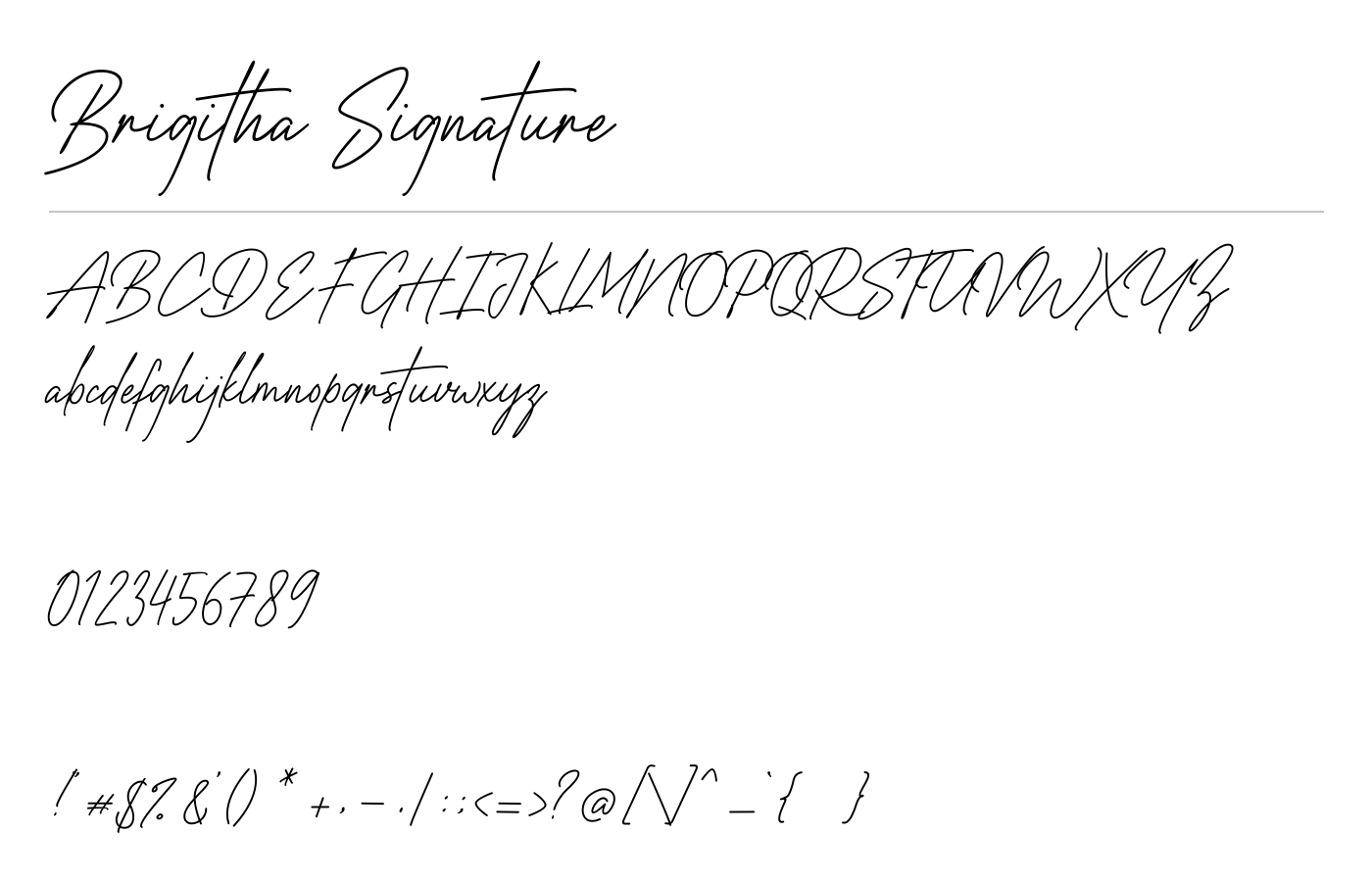
Brigitha Signature is a delicate, handwritten script font featuring slender, flowing strokes that evoke the elegance of a personal signature. Its tall, narrow letterforms and smooth, continuous lines create a sophisticated yet approachable feel, making it perfect for branding, invitations, and stylish editorial work. This font works well where a refined, intimate touch is desired, adding a modern and graceful personality to any design.
Brigitha Signature Font
About Brigitha Signature Font
| Font family | Brigitha Signature Font |
| Designer | Lettersiro 2018 |